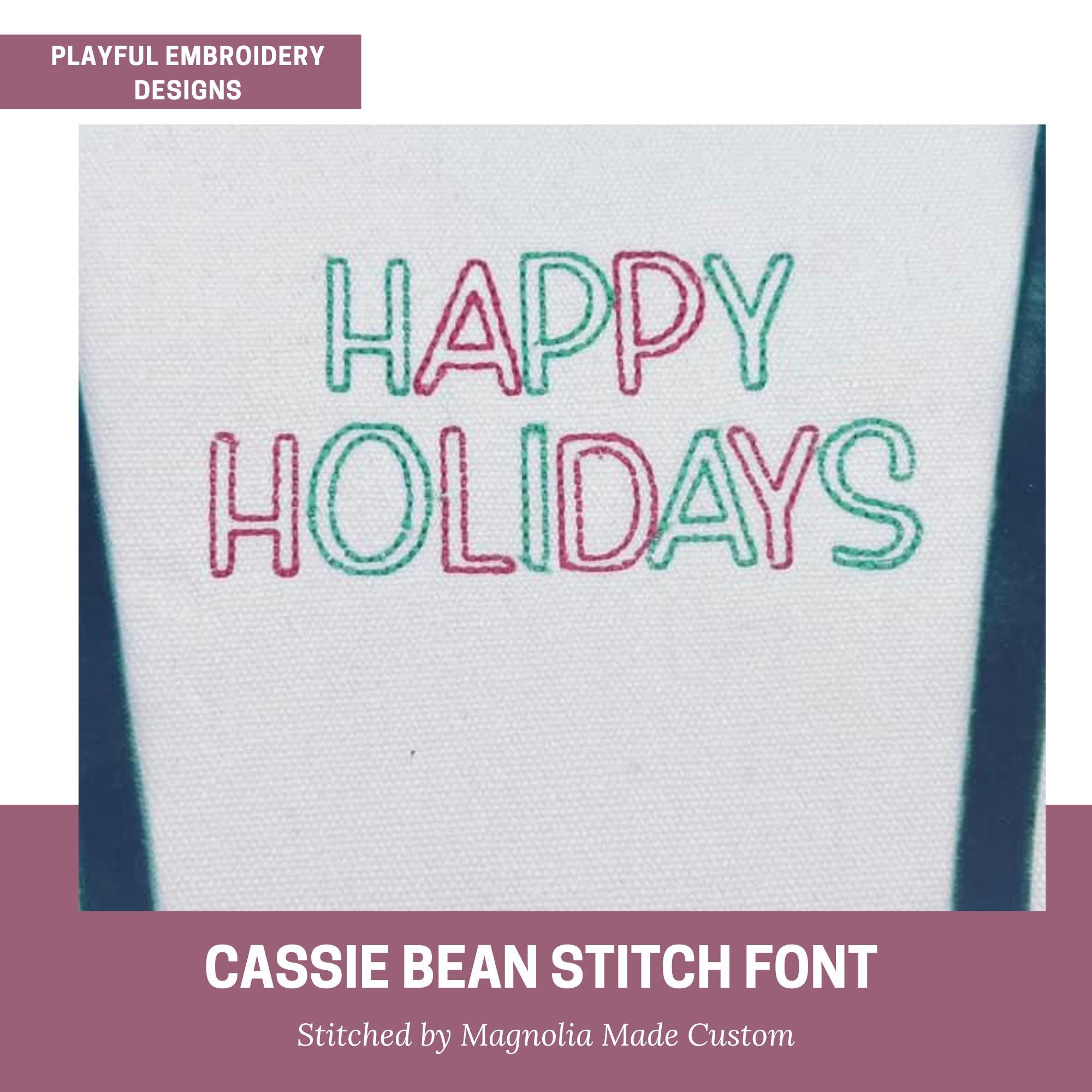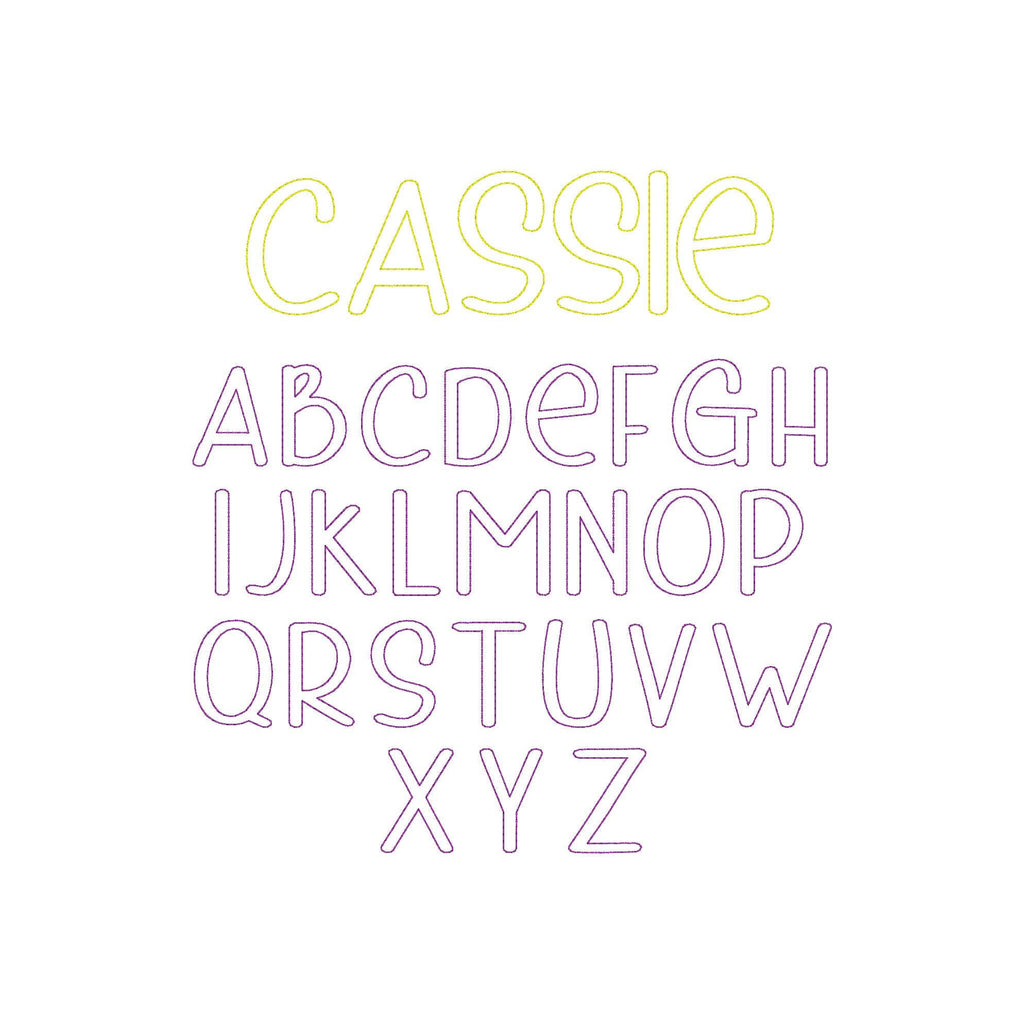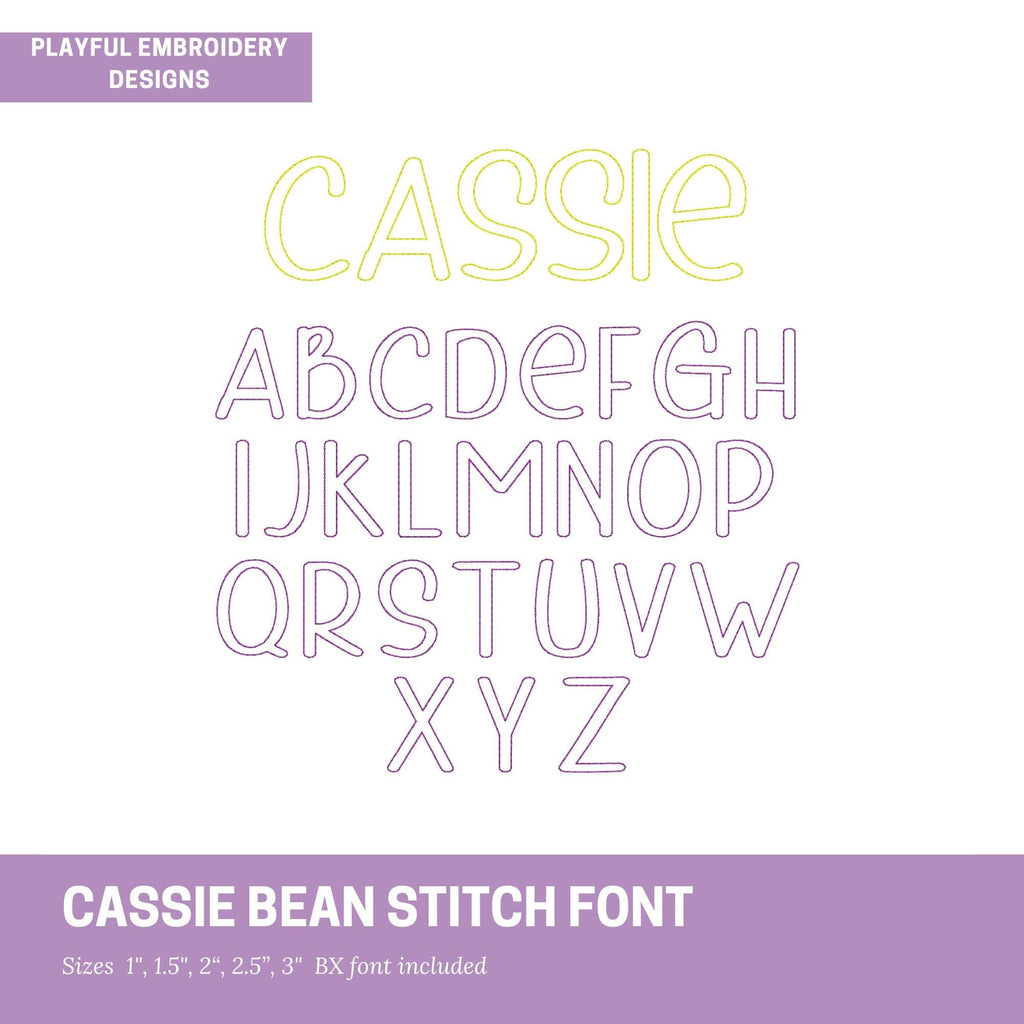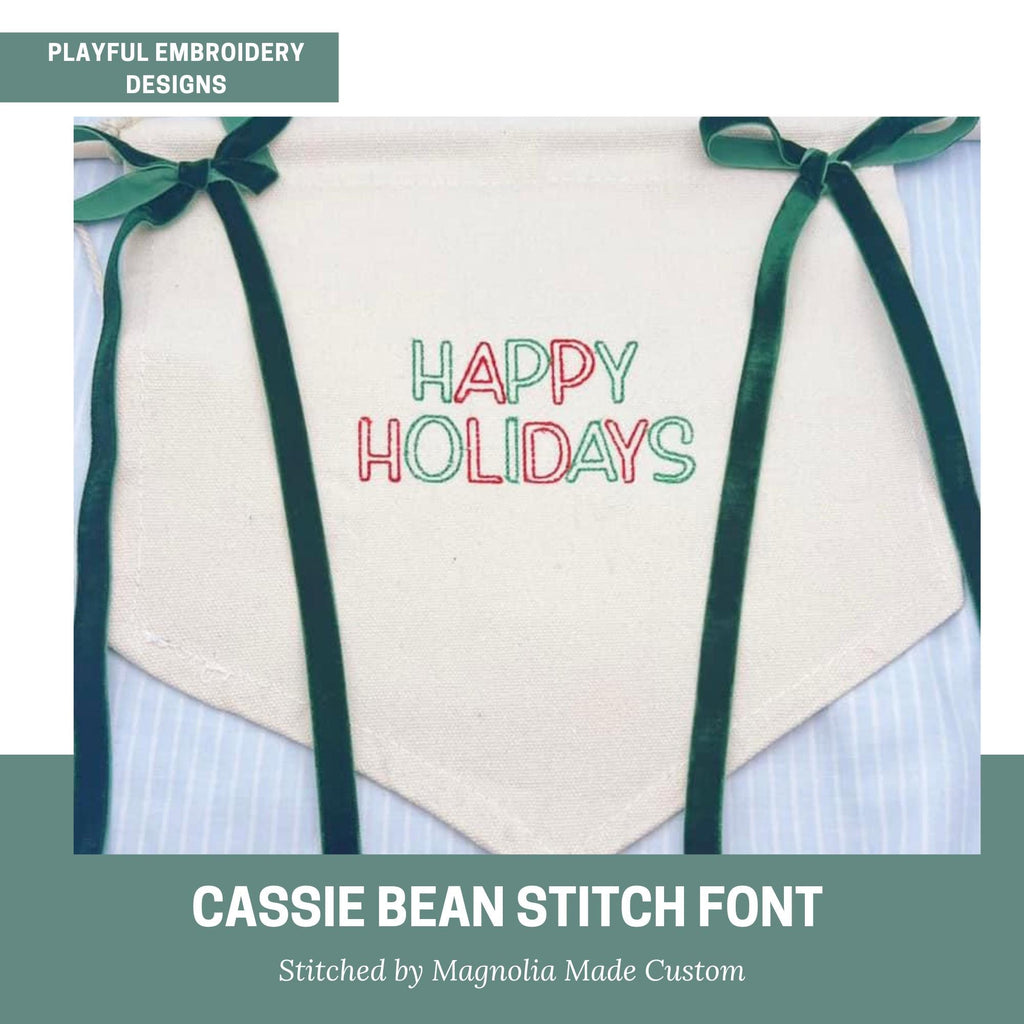
Cassie Bean Stitch Outline Font Design, Bean Stitch Machine Embroidery Font, 1", 1.5", 2", 2.5", 3" font size, BX Monogram Font, Boy Font
Cassie bean stitch outline font design for machine embroidery. A quick stitching font perfect for kids or boys.